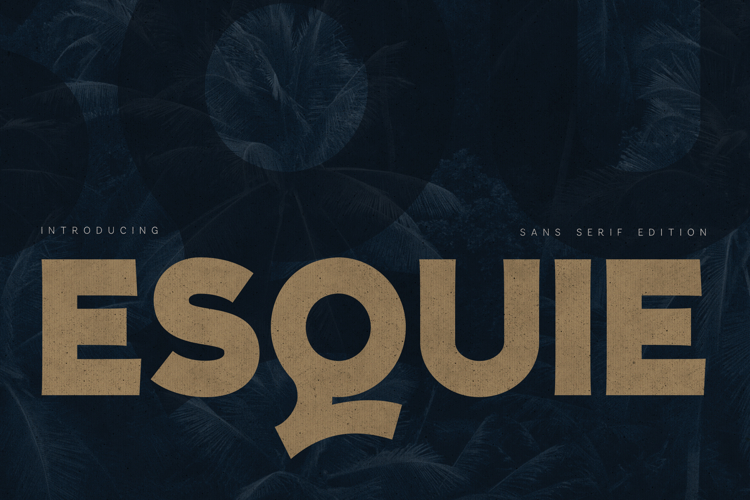
Esquie Modern Bold Sans Serif Font
Esquie is a bold modern sans serif typeface designed to deliver strong visual impact while maintaining clean and contemporary readability. Built with solid geometric shapes and smooth curves, this typeface brings a confident and versatile style perfect for modern branding and editorial design.
Its bold construction makes Esquie ideal for headlines, posters, branding, and logo design where strong typography is needed. At the same time, the balanced proportions and carefully designed letterforms ensure that the typeface remains readable and visually pleasing across a wide variety of creative projects.
The font supports a wide range of multilingual characters, punctuation, and symbols, making it suitable for international design work. Whether used in large display settings or modern branding layouts, Esquie delivers a powerful and stylish typographic voice.
• Branding & Logo Design
• Posters & Headlines
• Editorial Layouts
• Packaging Design
• Social Media Graphics
• Advertising
• Modern Typography Projects
• Website Design
Esquie brings together bold personality and modern minimalism, making it a valuable addition to any designer’s font library.